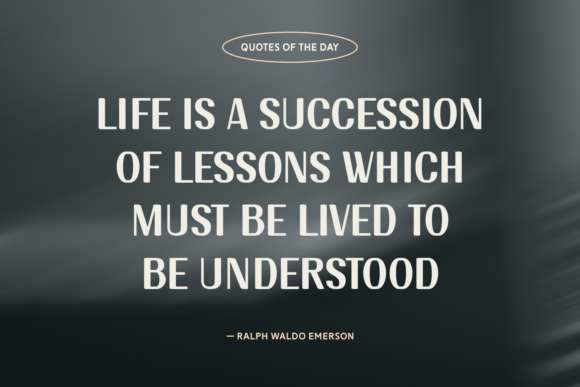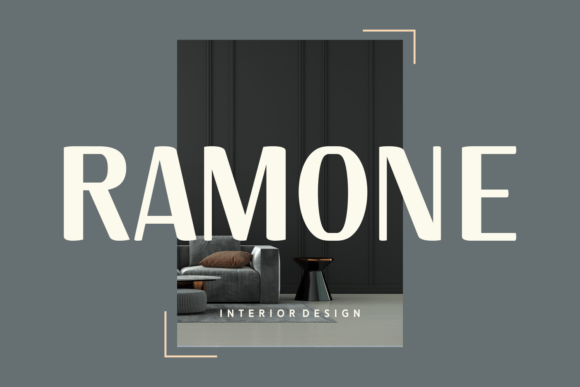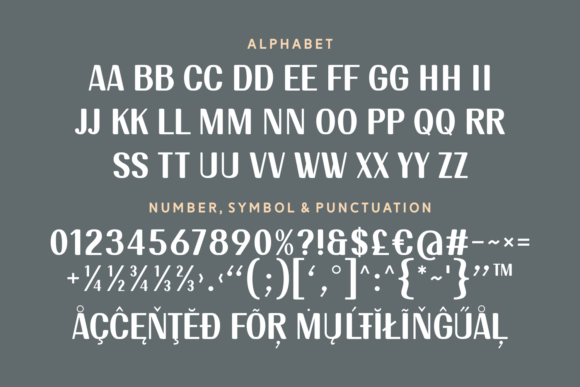
Repeat Please Font – Free Download
Introduction to Repeat Please Font
Repeat Please is a contemporary sans serif typeface with tall, sleek characters and a touch of retro charm.
Its high readability and stylish contrast make it a great fit for posters, social media graphics, fashion branding, and editorial layouts .
Key Features of Repeat Please Font